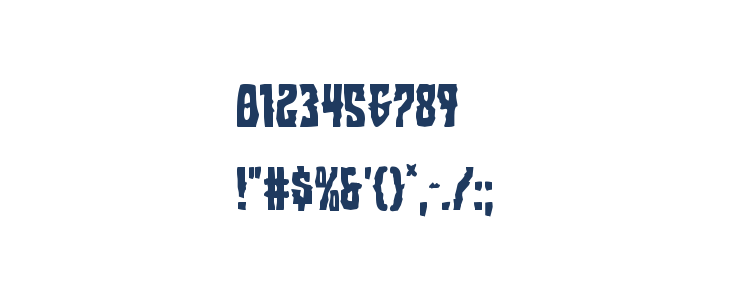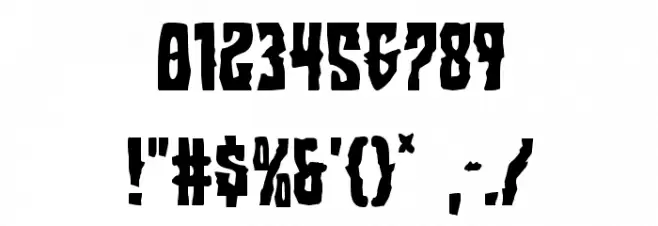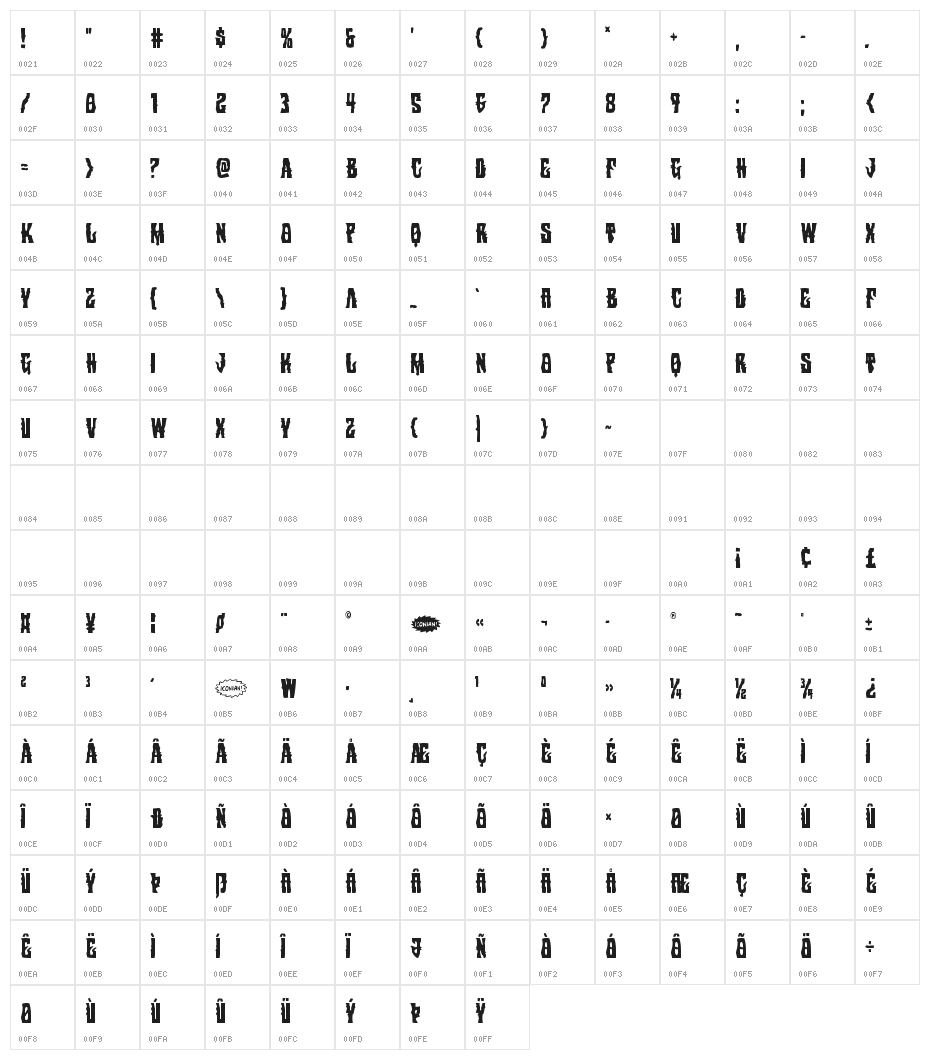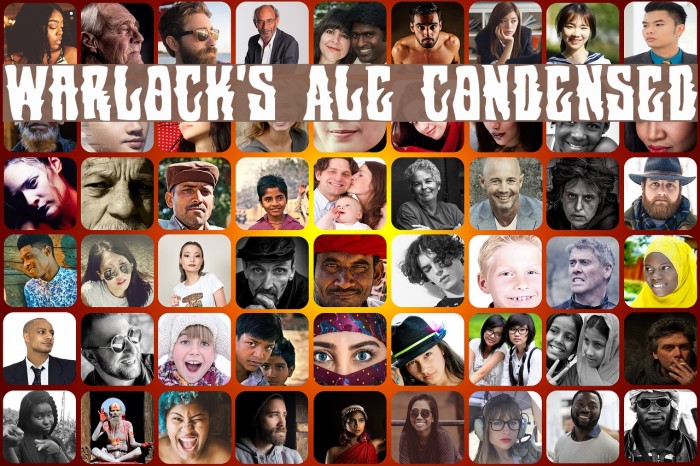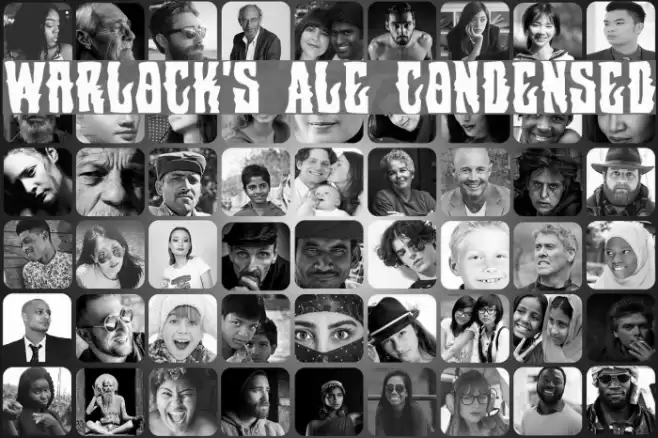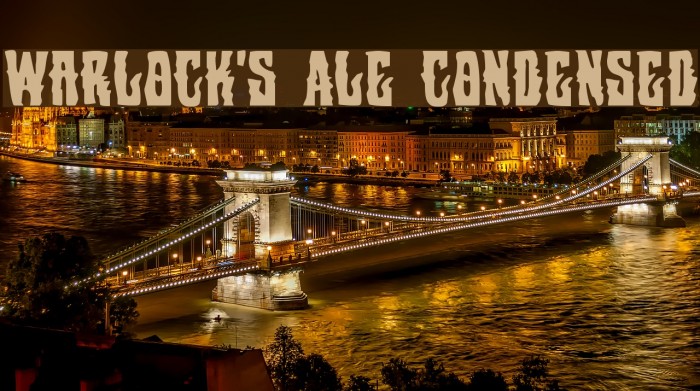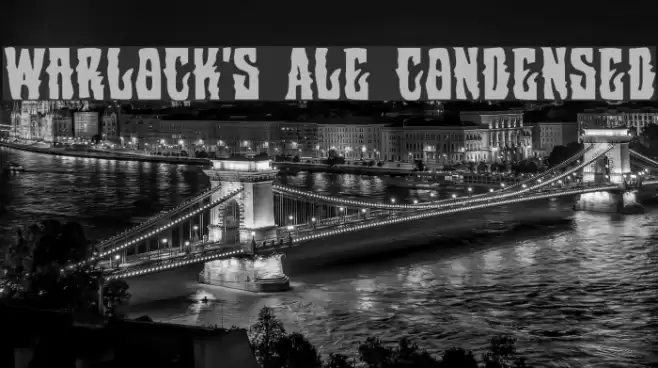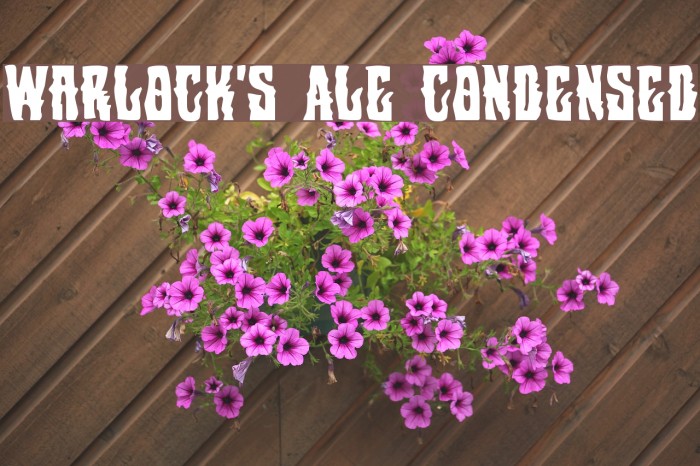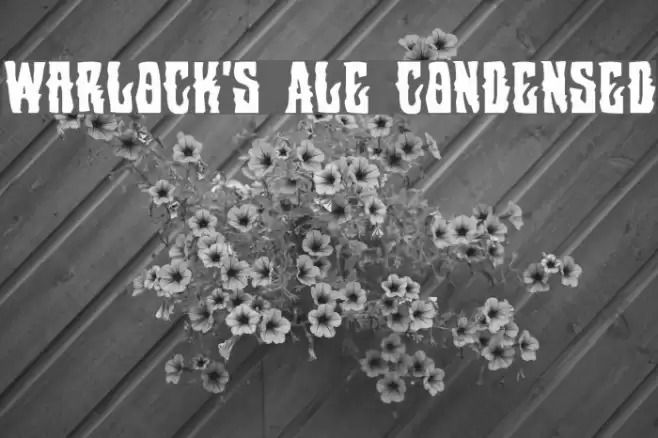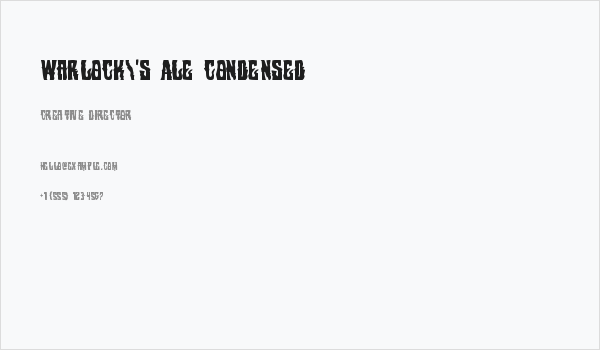
Warlock's Ale Condensed Font
Warlock's Ale Condensed Description
This font features a bold and condensed style with a distinctly decorative appearance. The characters are heavily stylized with sharp, angular edges and unique cutouts, giving them a rugged and mystical look. The uppercase and lowercase letters maintain a consistent design, enhancing the font's cohesive appearance. Numbers and special characters are equally bold and match the overall theme, making this font suitable for eye-catching designs. The condensed width allows for efficient use of space, while the bold weight ensures visibility and impact.
| Proposed Projects | Ideal for fantasy-themed posters, Halloween event flyers, video game titles, and branding for mystical or magical products. |